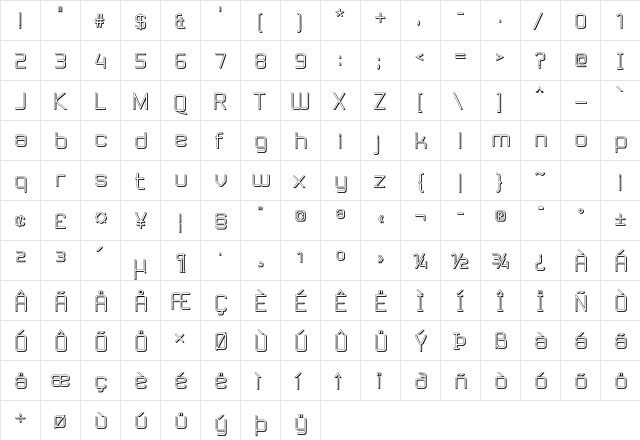
Modcon Outline Regular
Design Context for Modcon Outline Typeface
Modcon Outline is built around its visual character rather than neutral utility — its distinctive forms are designed to make an impression at display sizes.
Font Pairing: Pair with a clean neutral sans-serif for body copy to let Modcon Outline's character lead without overwhelming the composition.
Pro Tip: Treat Modcon Outline as the centrepiece of your typographic hierarchy. One strong heading set in a decorative face can carry an entire layout.